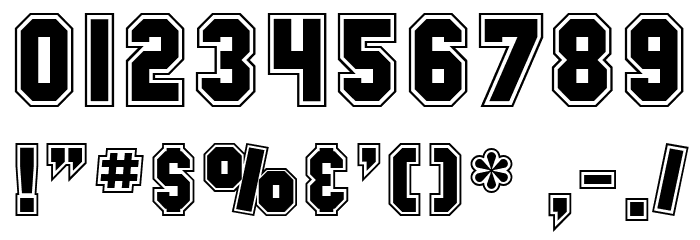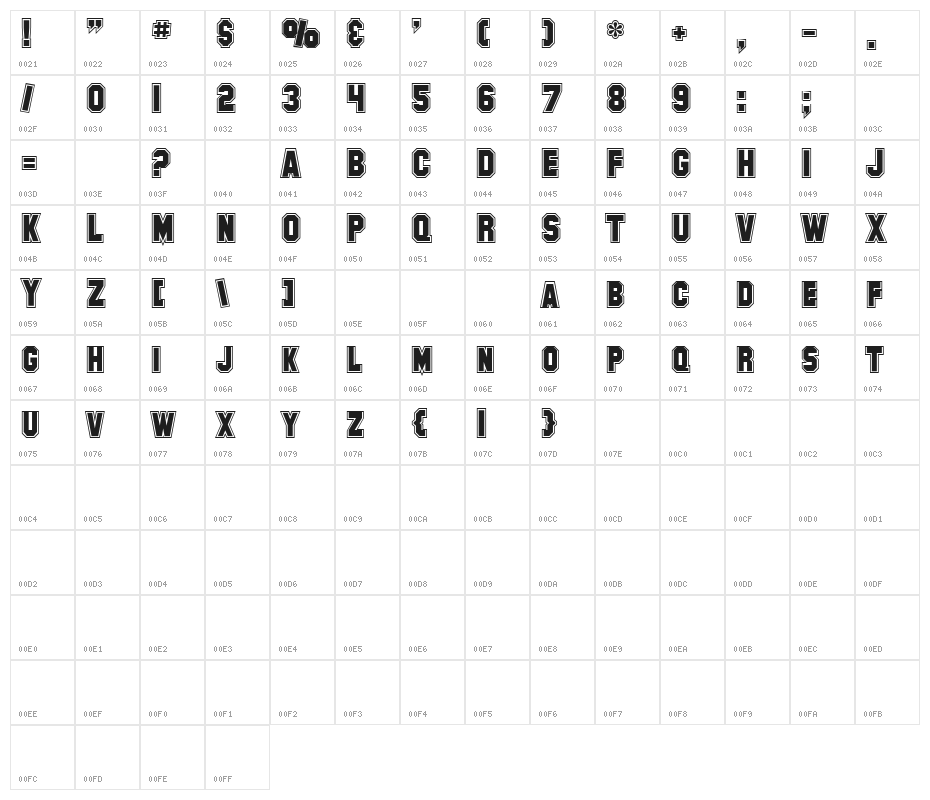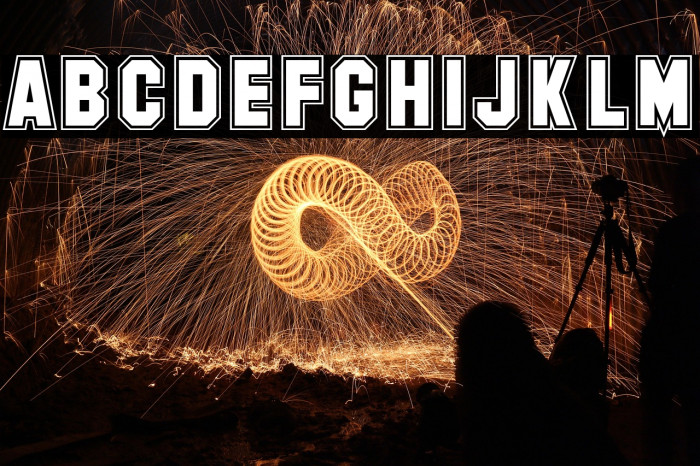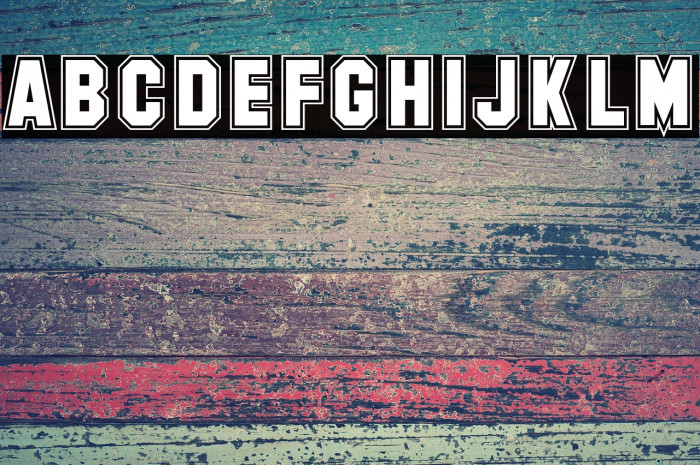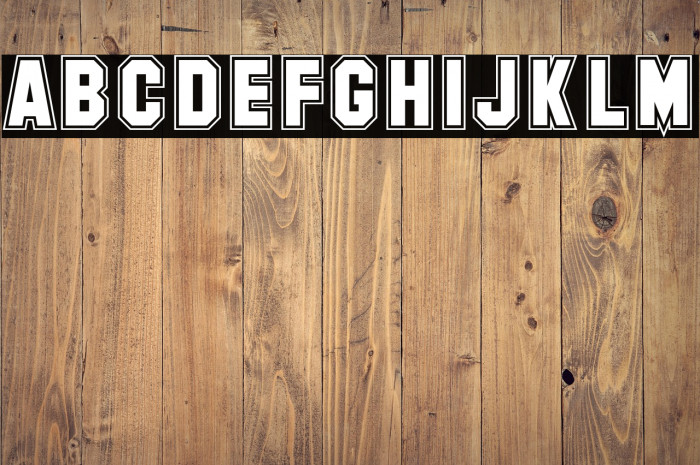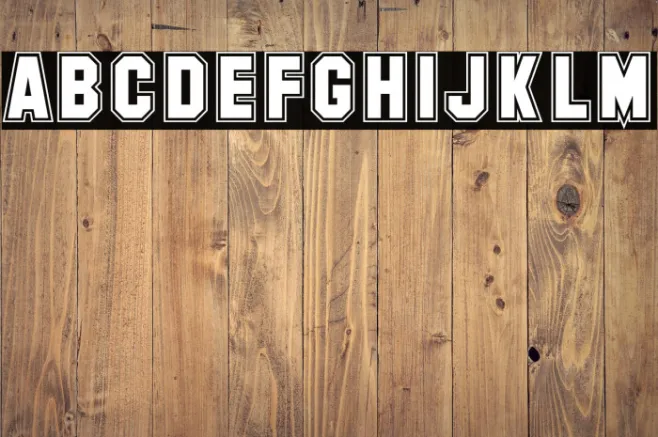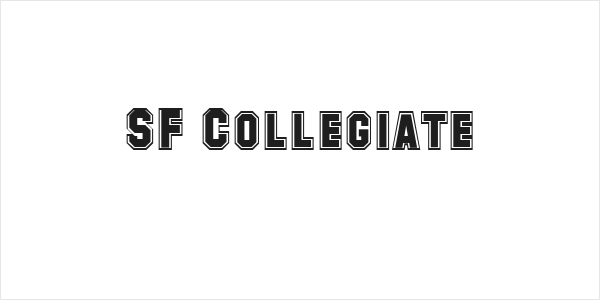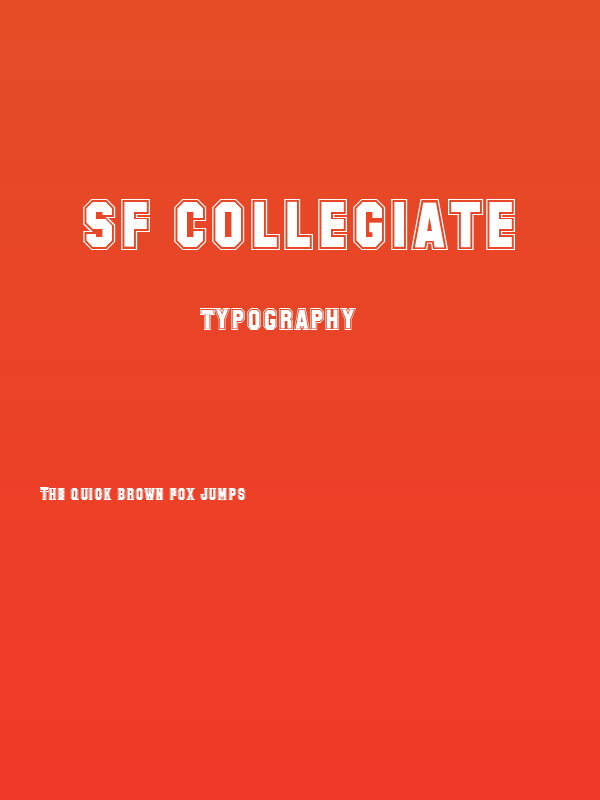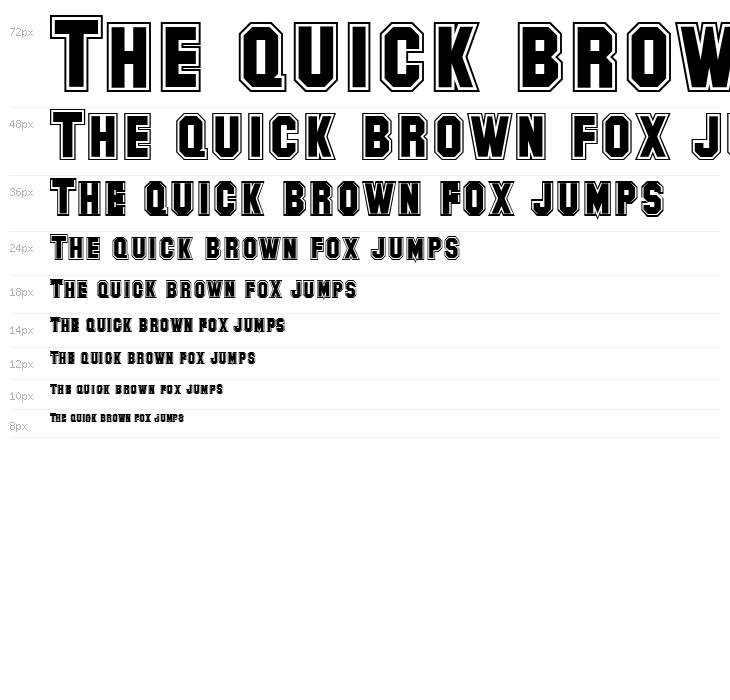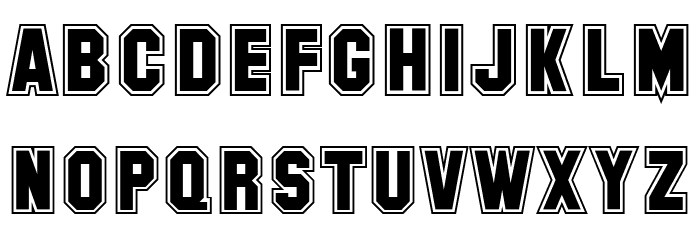
SF Collegiate Font
SF Collegiate Description
This font features a bold, collegiate style with strong, angular lines and a distinct outline that gives it a three-dimensional appearance. The uppercase letters are prominent and commanding, making them ideal for attention-grabbing headlines or titles. The numbers and special characters maintain the same boldness and style, ensuring consistency across all uses. The font's design is reminiscent of traditional varsity or sports team lettering, evoking a sense of strength and tradition. Its structured form and sharp edges make it suitable for projects that require a bold and impactful visual presence.